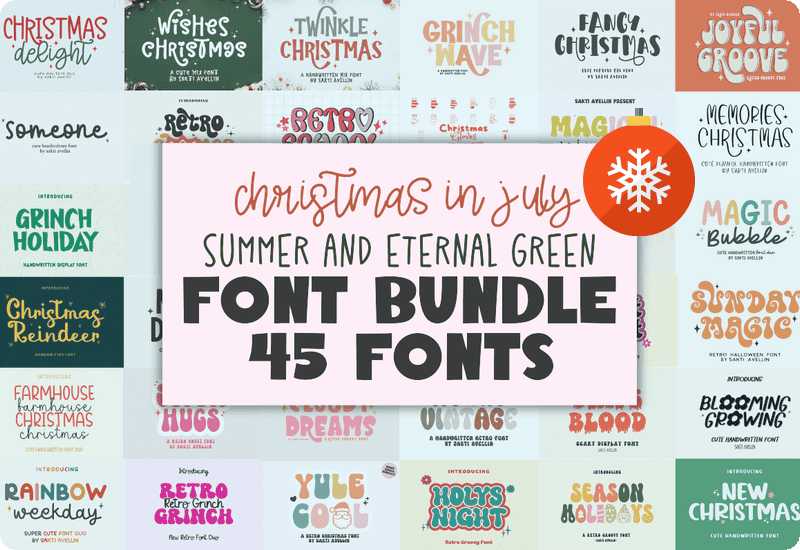
A Creative Opportunity You Can’t Miss
Designers, crafters, and creatives often face a common challenge: finding high-quality, versatile fonts that don’t break the bank. Whether you’re working on holiday cards, branding, social media graphics, or merchandise, the right font can make or break your project. But premium fonts often come with a hefty price tag, and licensing restrictions can limit your creative freedom.
What’s Inside the Bundle?
This bundle is a treasure chest of creativity, featuring a wide variety of font styles to suit every design need. From festive and whimsical to elegant and modern, you’ll find fonts that are perfect for:
Here’s a quick look at the 45 fonts included:
- Grinch Wave Display Font
- Farmhouse Christmas Script & Handwritten Font
- Memories Christmas Script & Handwritten Font
- Twinkle Christmas Display Font
- Doodle School Script & Handwritten Font
- Christmas Delight Script & Handwritten Font
- Sunday Magic Display Font
- Magic Bubble Display Font
- Aurora Script & Handwritten Font
- Magical Vintage Display Font
- Bouncy Hoops Display Font
- Grinch Holiday Display Font
- Retro Summer Display Font
- Chillin Season Display Font
- Surfing Beach Display Font
- Wishes Christmas Script & Handwritten Font
- Rainbow Weekday Duo Display Font
- Fancy Christmas Display Font
- Peach Eyes Script & Handwritten Font
- Christmas Reindeer Polices Manuscrites Police
- Joyful Groove Display Font
- Silent Night Display Font
- Cloudy Dreams Display Font
- Merry Dreams Display Font
- Super Hugs Display Font
- Season Holidays Polices d’Affichage Police
- New Christmas Script & Handwritten Font
- Only Good Handwritten Display Font
- Little Girl Script & Handwritten Font
- Thick Love Display Font
- Mango Dream Script & Handwritten Font
- Whimsy Happie Display Font
- Blooming Growing Script & Handwritten Font
- Handwritten Script & Handwritten Font
- Someone Script & Handwritten Font
- Retro Grinch Display Font
- Winter Belle Script & Handwritten Font
- Holys Night Display Font
- Merry Vintage Script & Handwritten Font
- Yule Cool Display Font
- Lovely Magic Display Font
- Drips Blood Display Font
- Retro School Display Font
- Dreamer Sunday Display Font
- Christmas Gloves Dingbats Font
Designed by Sakti Avellin
Each font is crafted with care and creativity by Sakti Avellin, known for producing high-quality, professional-grade typefaces.
Versatility for Every Project
From playful and festive to elegant and modern, this bundle covers a wide range of styles and moods.
Who Is This Bundle For?
This bundle is ideal for:
- Graphic Designers looking to expand their font library with high-quality assets.
- Small Business Owners who want to create professional branding without hiring a designer.
- Crafters and DIY Enthusiasts working on holiday cards, scrapbooks, or handmade gifts.
- Social Media Managers who need eye-catching fonts for posts and ads.
- Teachers and Educators creating worksheets, posters, and classroom materials.
- Bloggers and Content Creators who want to add personality to their visuals.
Key Features
- 45 Premium Fonts: Includes script, handwritten, display, and dingbat styles.
- High-Quality Design: Fonts are professionally crafted and ready for use.
- Multiple Styles: From festive to retro, elegant to playful.
Final Thoughts